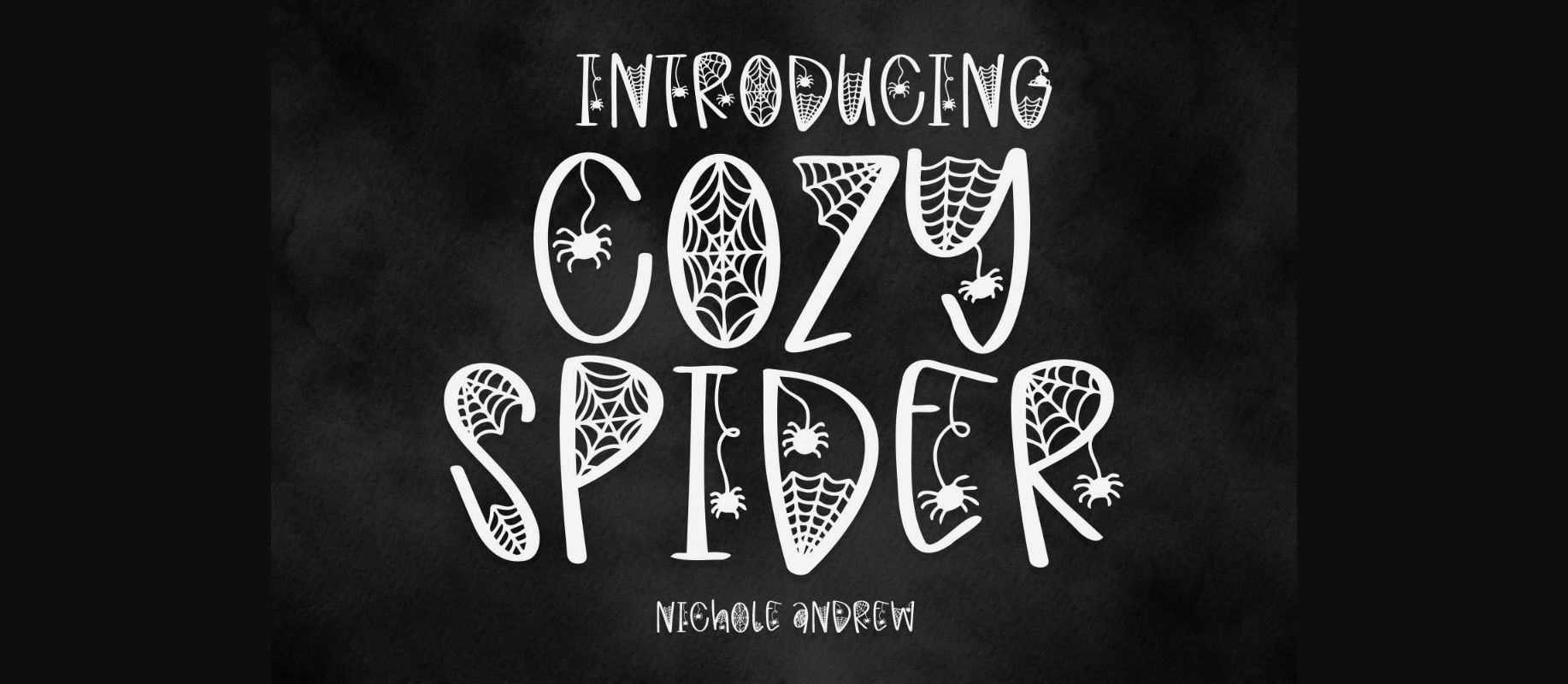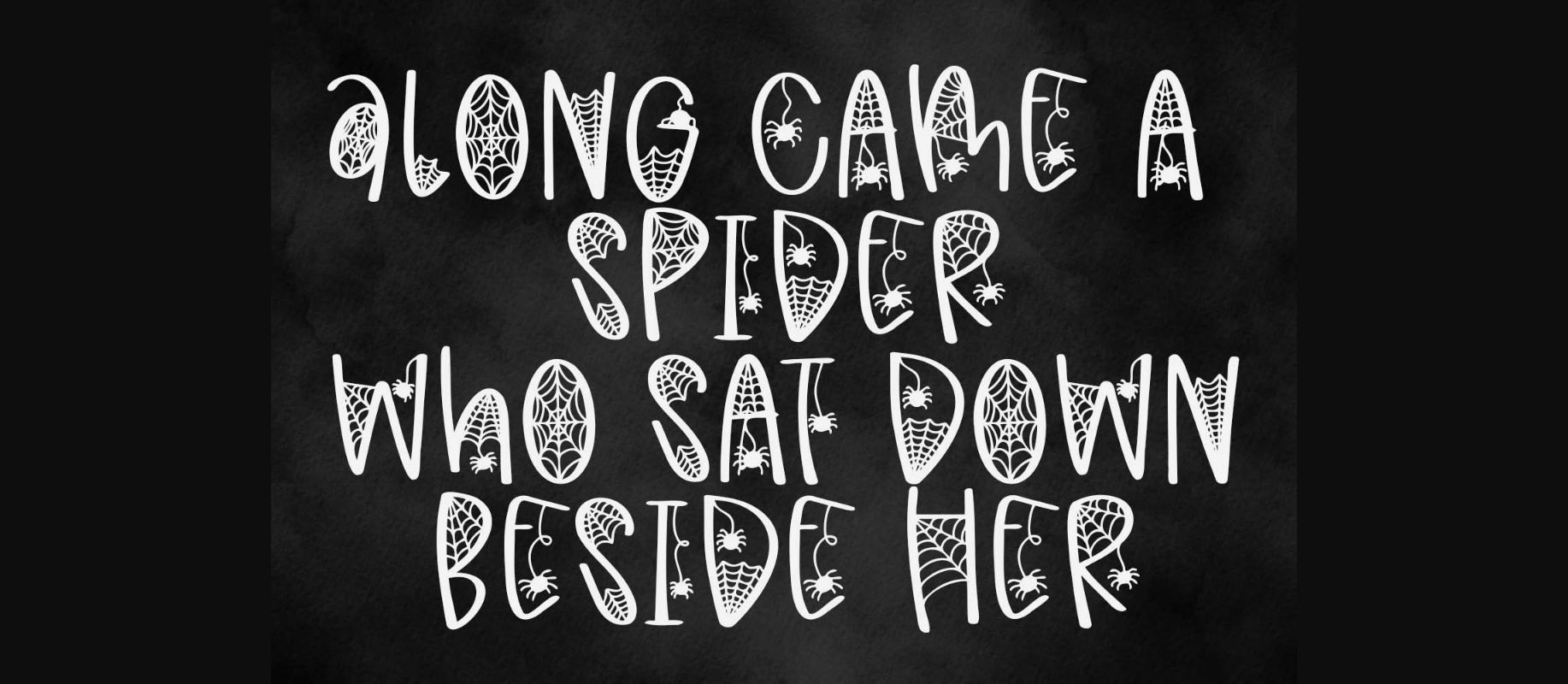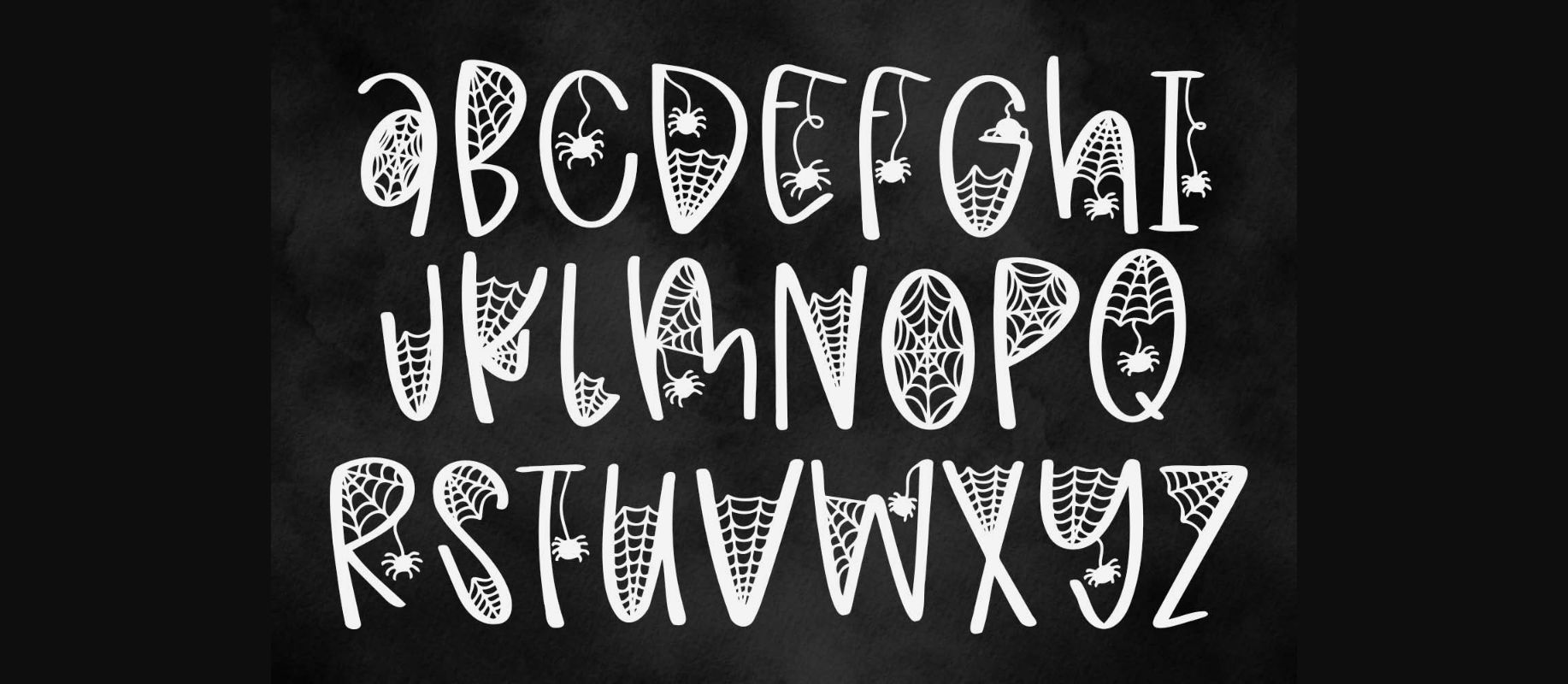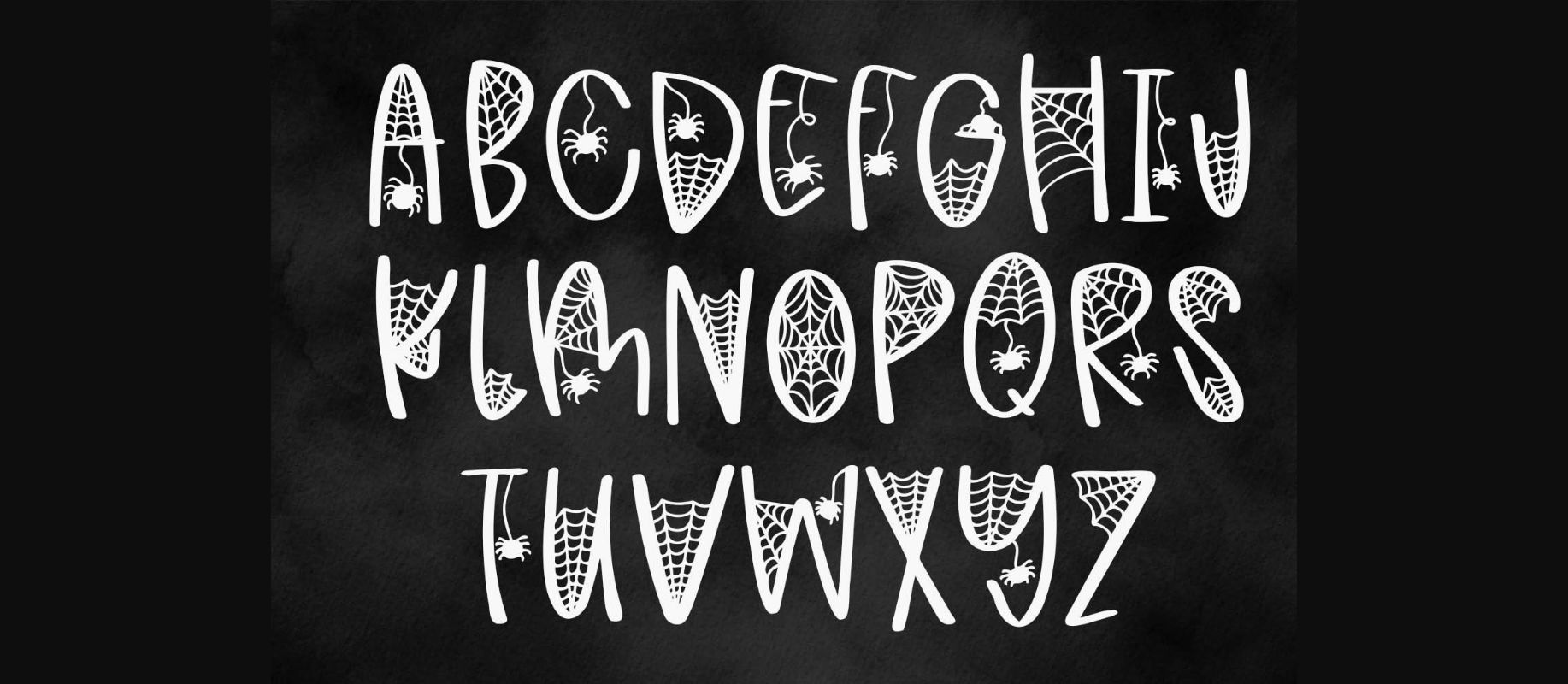
Cozy Spider is a fun decorative Halloween font with cozy little spiders. Cozy Spider is a mostly caps-only font decorated with spider webs for a fun look. Use this font on your next Halloween project today!